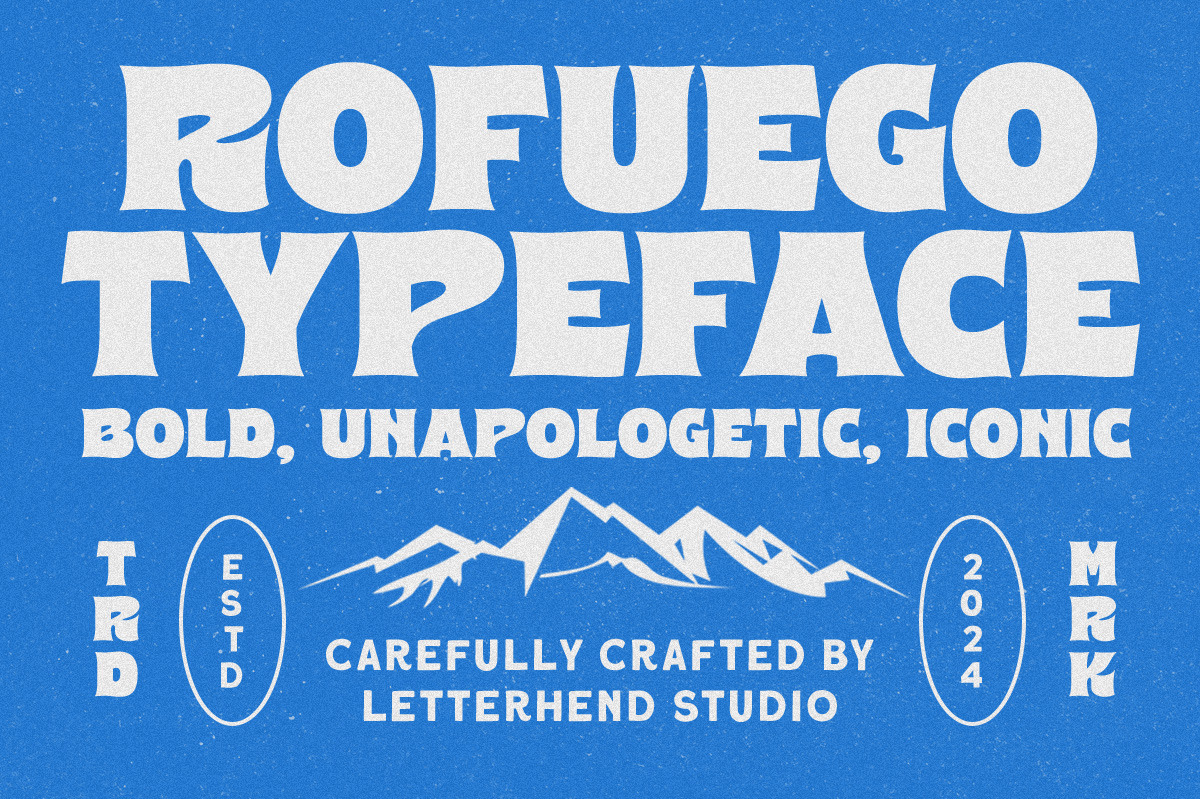
Rofuego Typeface
Rofuego is a bold display typeface that unapologetically commands attention. With a touch of nostalgia and a modern twist, it’s the perfect choice for iconic logos, headlines, and standout designs.